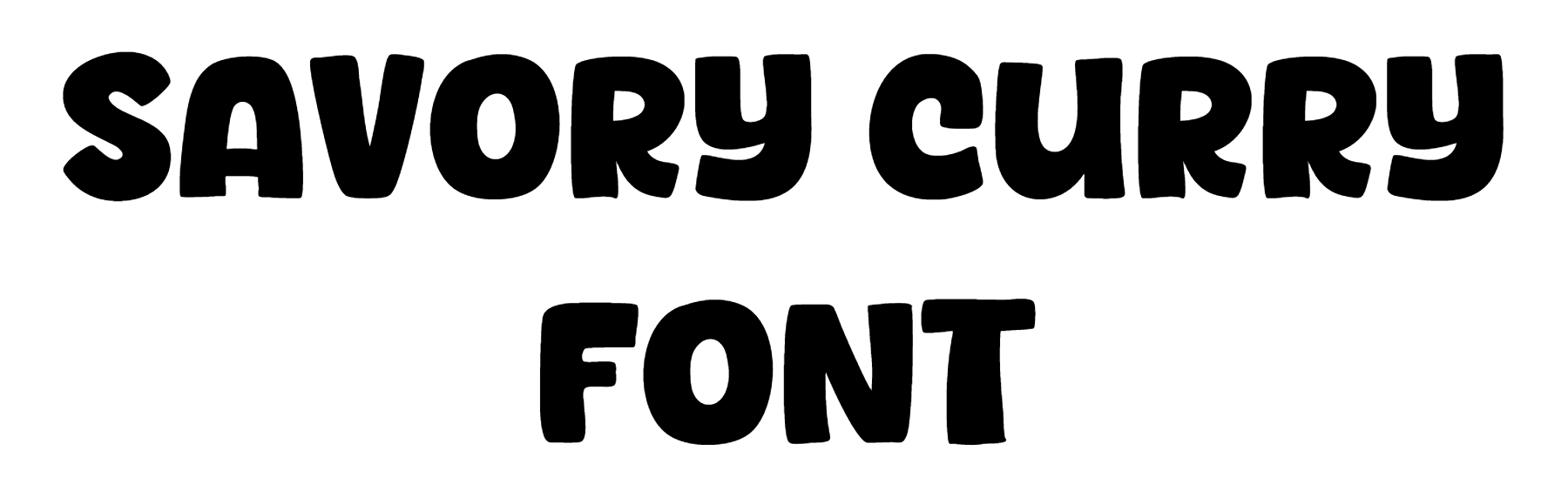
Savory Curry
Savory Curry is a cartoon font created by Khurasan & Jalembe. Its bouncy, rounded letters feel playful, like lettering from a cartoon or a comic book. It's a free download, and you can try it with your own text in the preview above first.
What You Can Type With Savory Curry
With complete upper and lowercase letters and all ten digits, Savory Curry is ready for real wording, not just a single headline. Common punctuation such as &, !, ? and @ is included as well. It has 2 accented letters, but not the full set for Spanish or French, so test any non-English words first.
Where Savory Curry Works Best
Designers usually reach for fonts like Savory Curry when they're making kids' books, birthday invites and fun YouTube thumbnails. Cartoon fonts are great for short, fun lines. If you place it over a busy photo, add a thick outline or a drop shadow so it stays readable.
Does Savory Curry support accented letters?
Partly. Savory Curry has 2 accented letters, but not the complete set for Spanish, French or German. Type your words in the preview above to check before you use it.